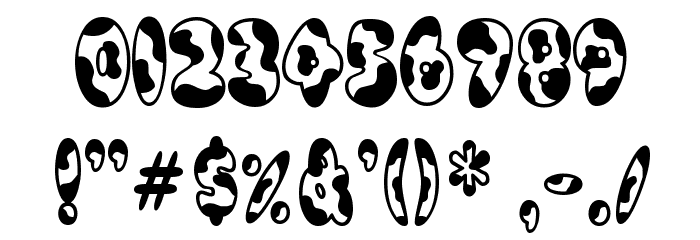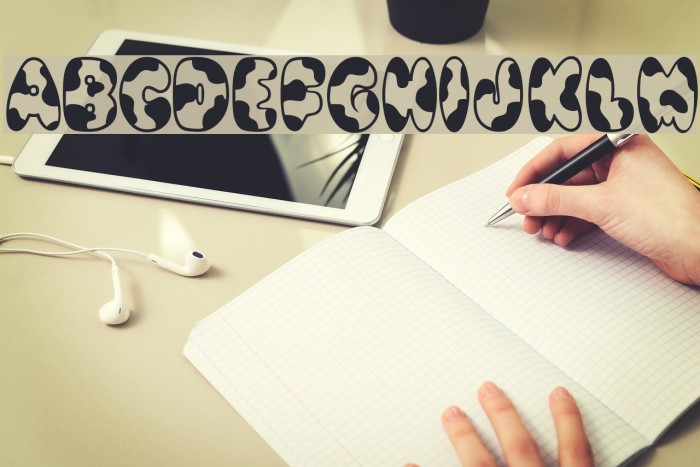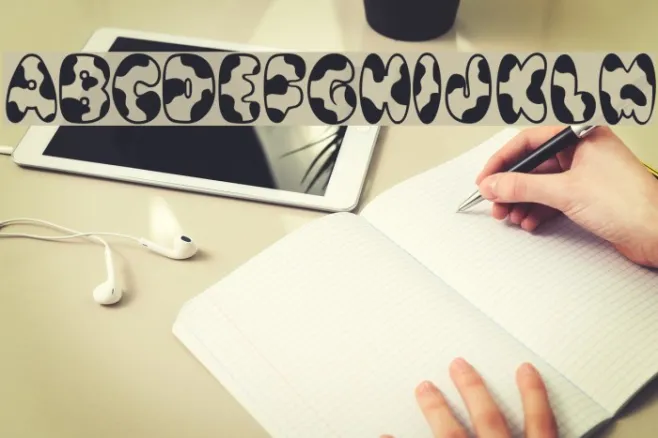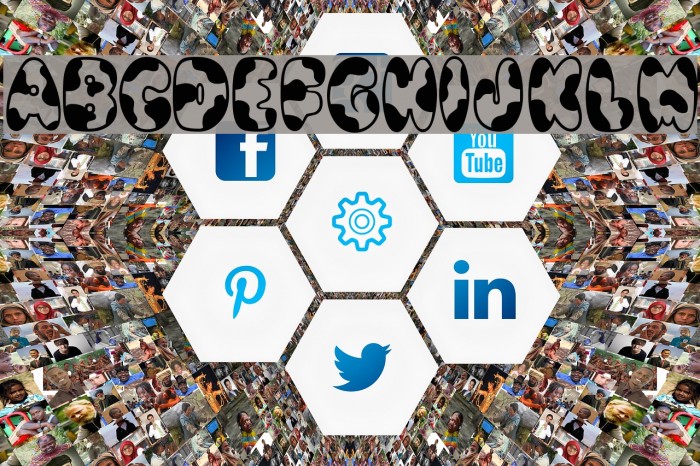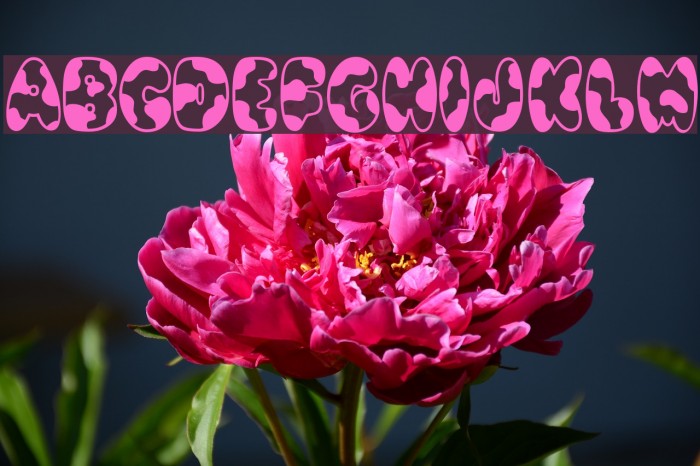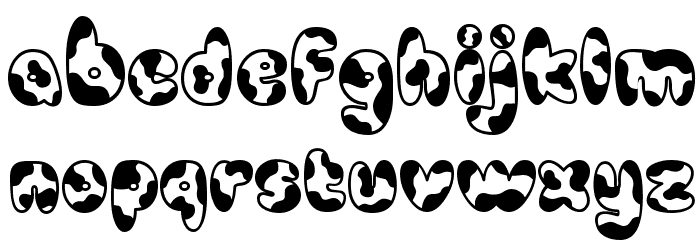
Cowpoke BI Font
Cowpoke BI Description
This playful and bold font features a unique cow pattern within each character, giving it a distinctive and whimsical appearance. The letters are rounded and chunky, with irregular black and white patches that mimic the look of a cow's hide. This design choice makes the font highly decorative and eye-catching, perfect for projects that require a fun and lively aesthetic. The font maintains consistent thickness throughout, with no significant contrast between strokes. Its quirky style is ideal for children's books, playful branding, or any project that seeks to convey a sense of fun and creativity.
| Use Case | Logos, Headlines, Posters |
| Proposed Projects | Children's books, playful branding, party invitations, themed events. |